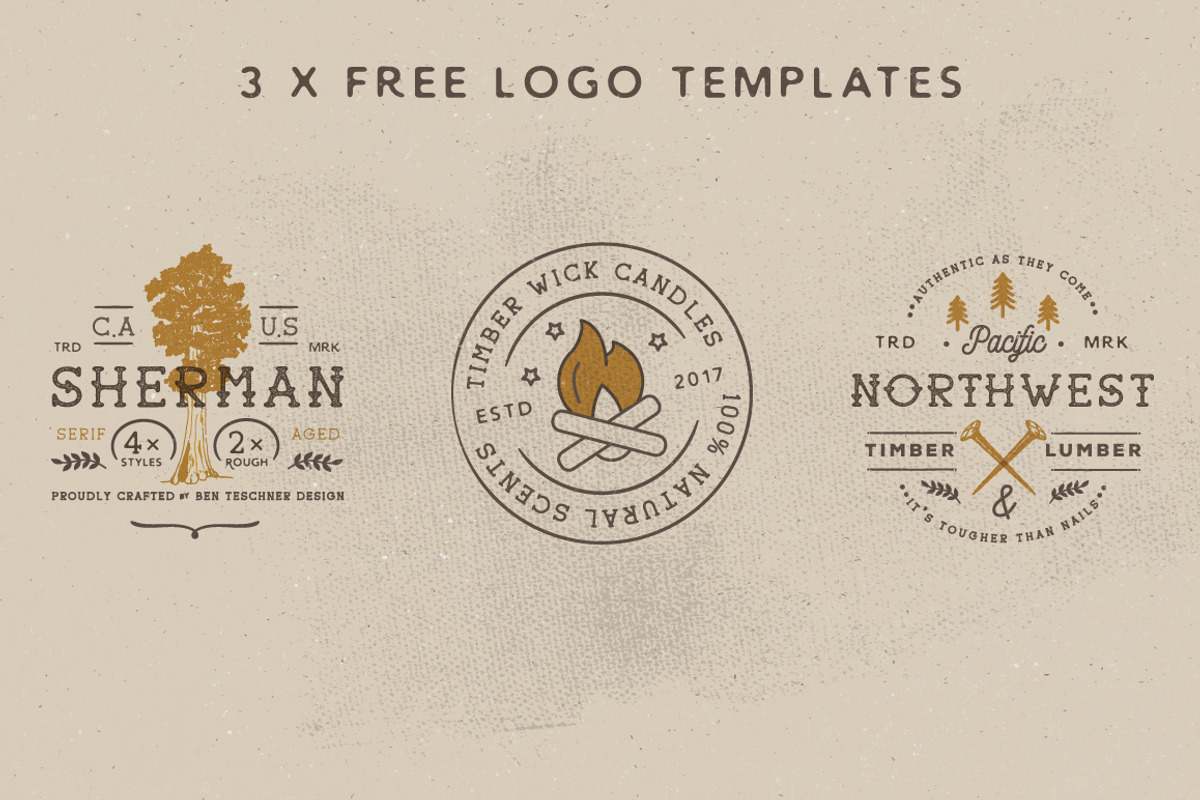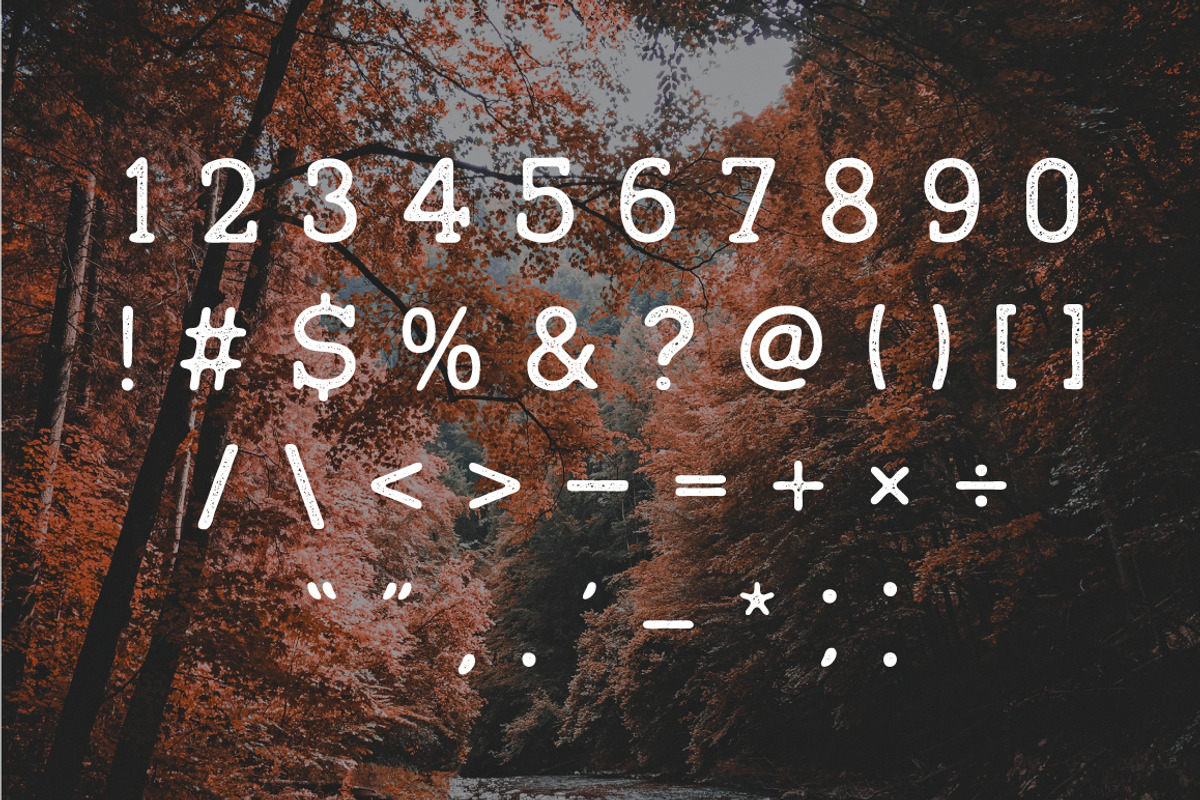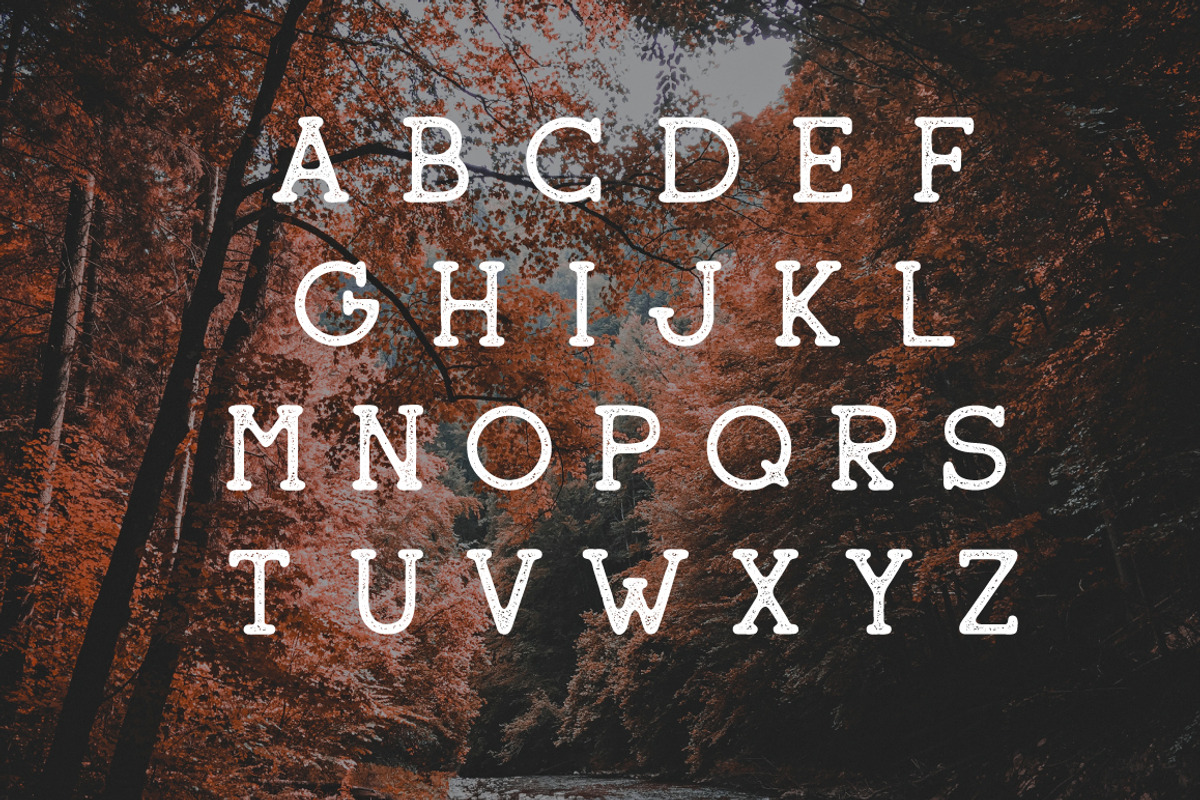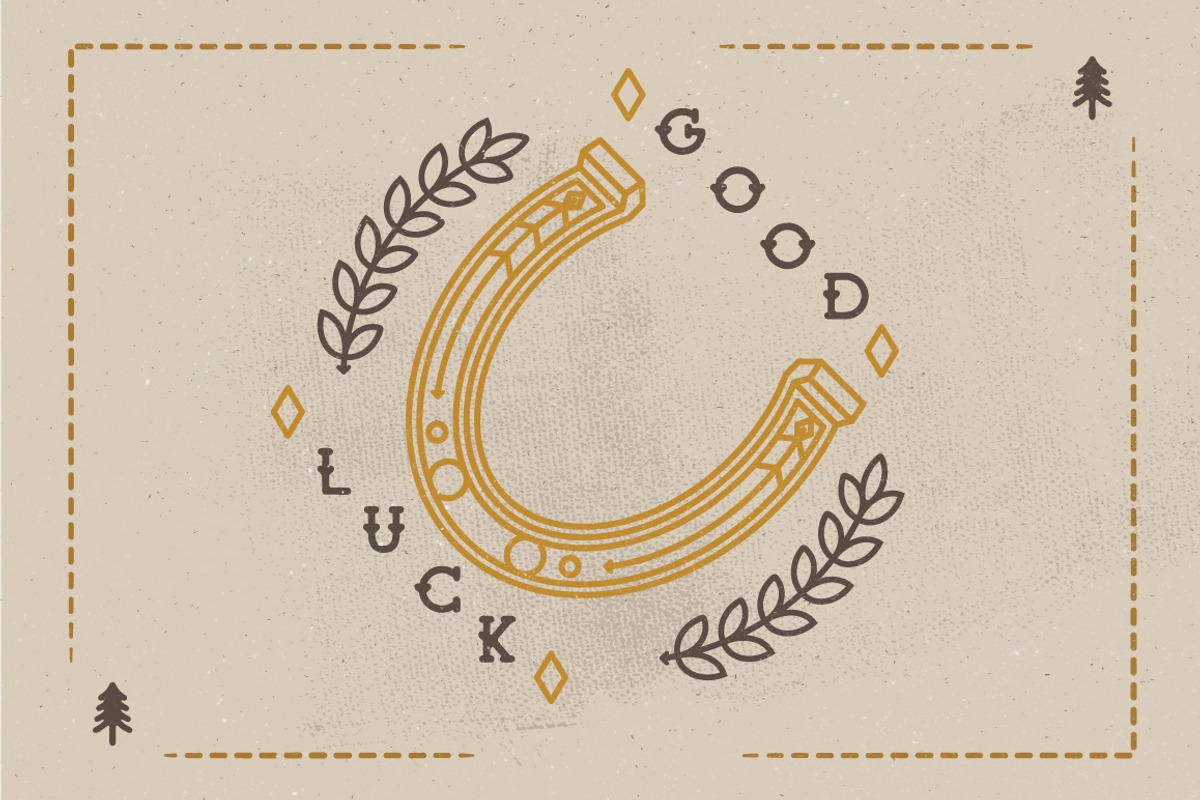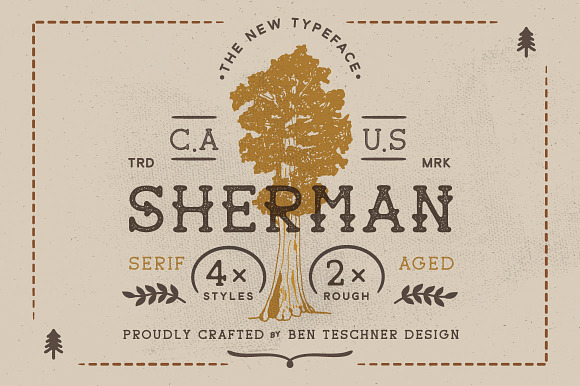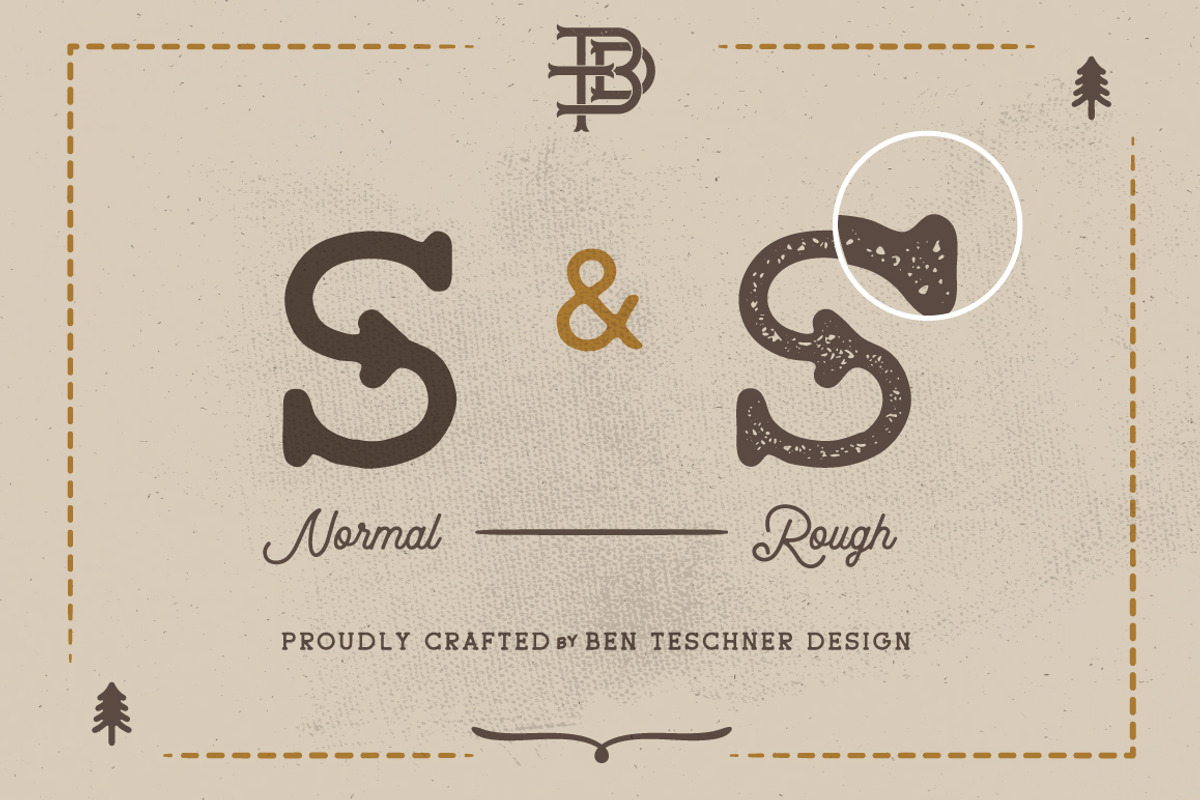
Sherman Font + 3 Logo Templates
Ben Teschner Design proudly presents our first product, Sherman Font Family! This font is inspired by the General Sherman tree in Sequoia National Park. This rough font would be perfect to combine in your design with vintage style. The fonts are great for logos, apparel design, tattoo inspired design, vintage design and much more.
DESIGN YOUR OWN LOGOS This package includes not only your font files, but also 3 pre-made and easily-editable logo templates to make designing your own visual identity a breeze!